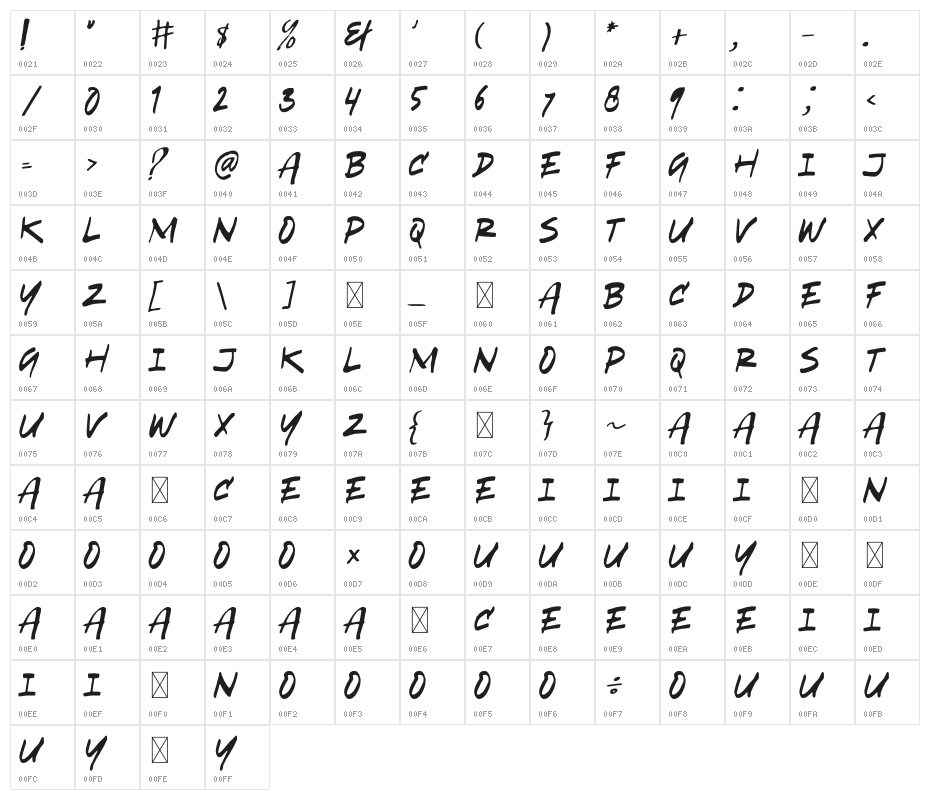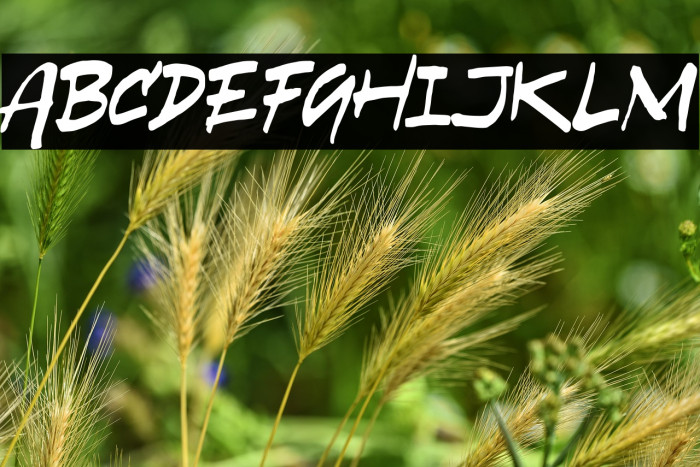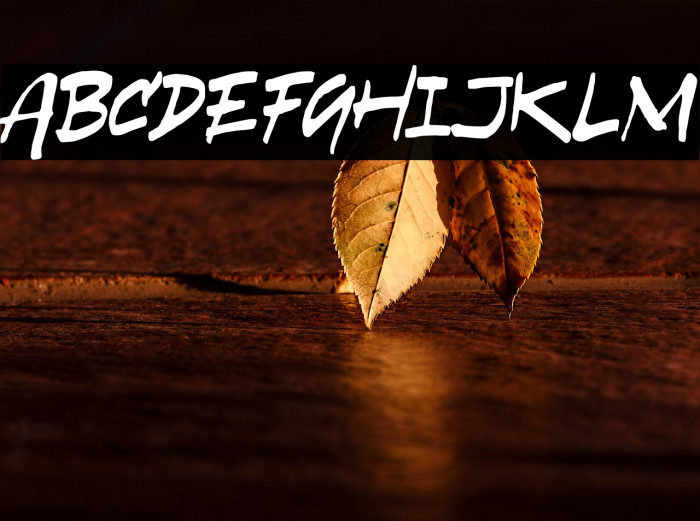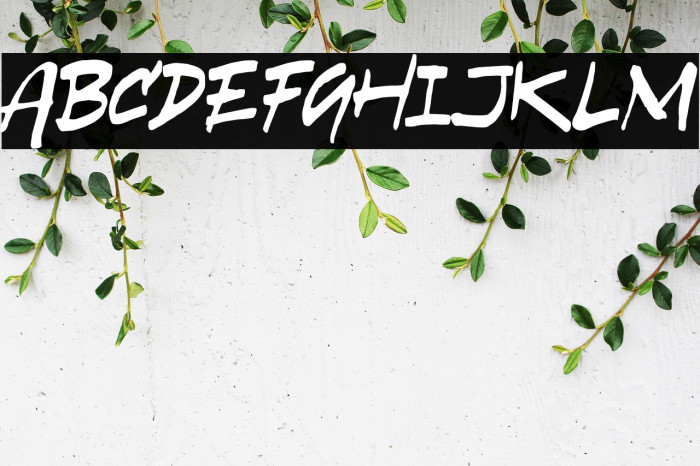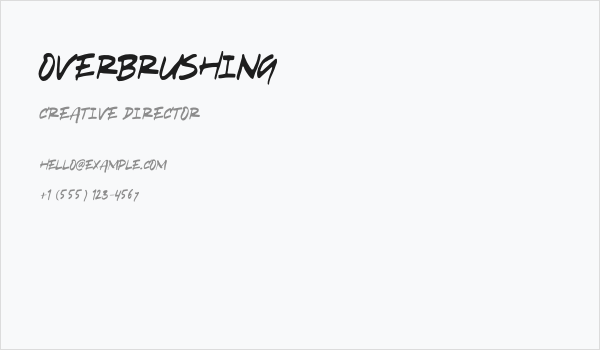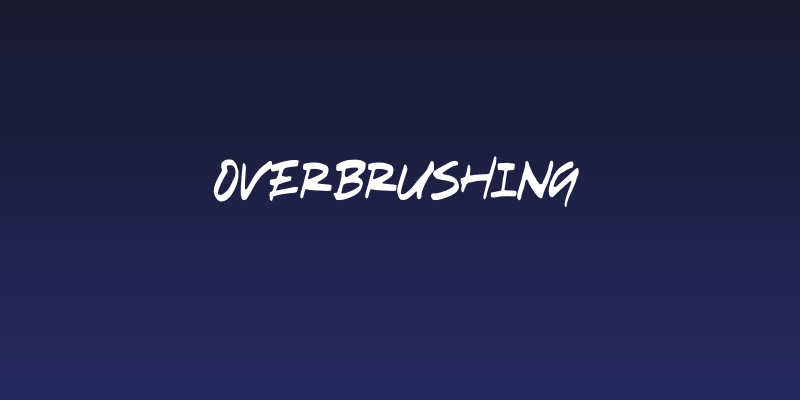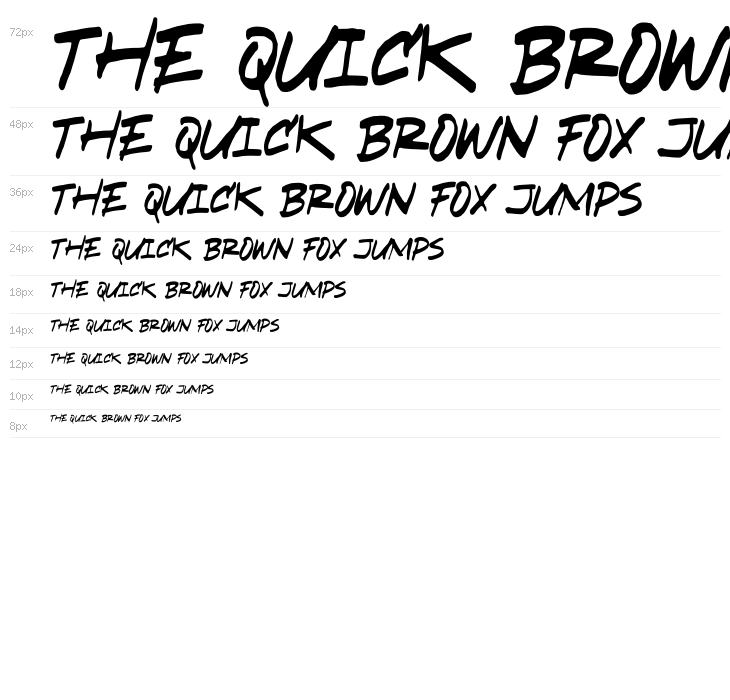
Overbrushing Font
Overbrushing Description
A bold, brush-style script font with a dynamic and energetic appearance, featuring irregular strokes and a hand-drawn feel.
| Use Case | Headlines, Logos, Artistic designs |
| Proposed Projects | Posters, branding, headlines, artistic projects. |